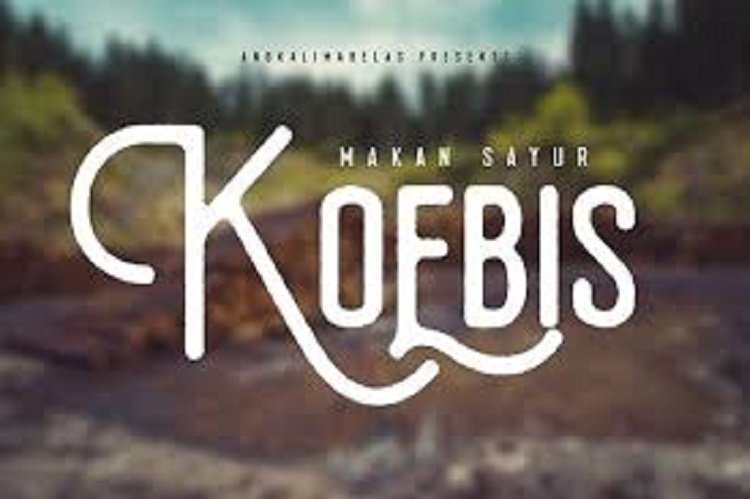
Koebis Font
Handrawn typeface with modern stylist feel. You can use this font for headline, wedding invitation, book cover title, logos, photography watermark, etc.